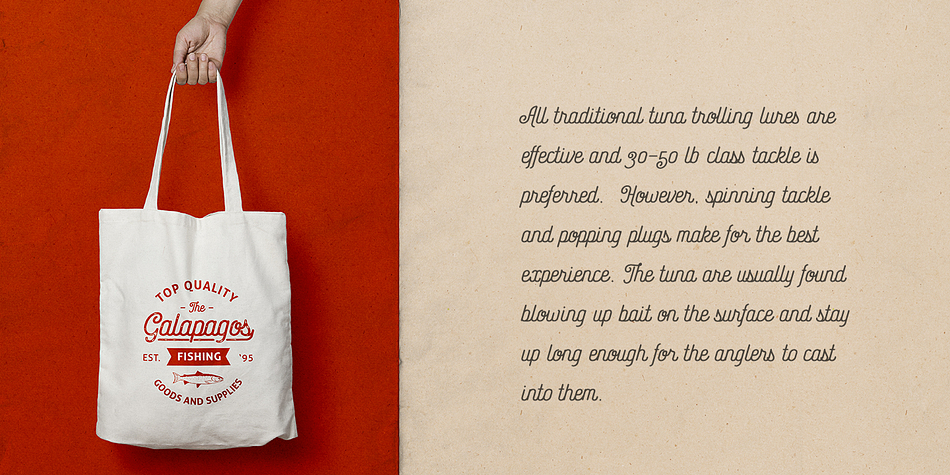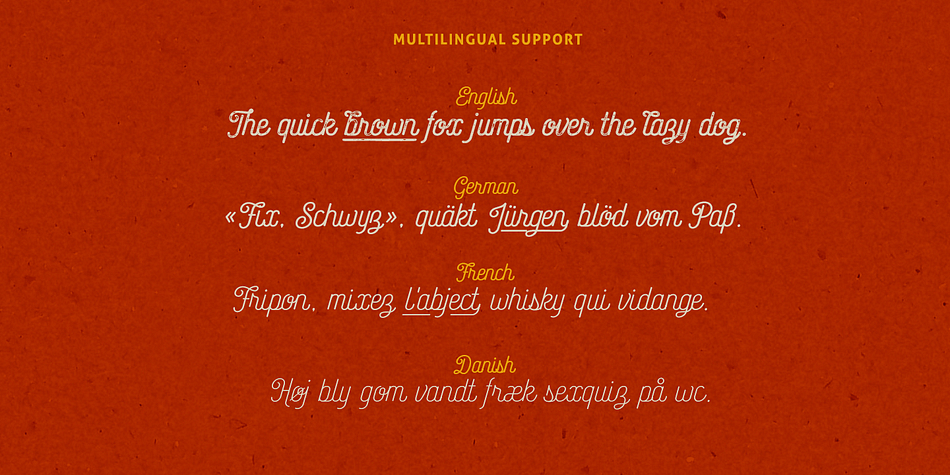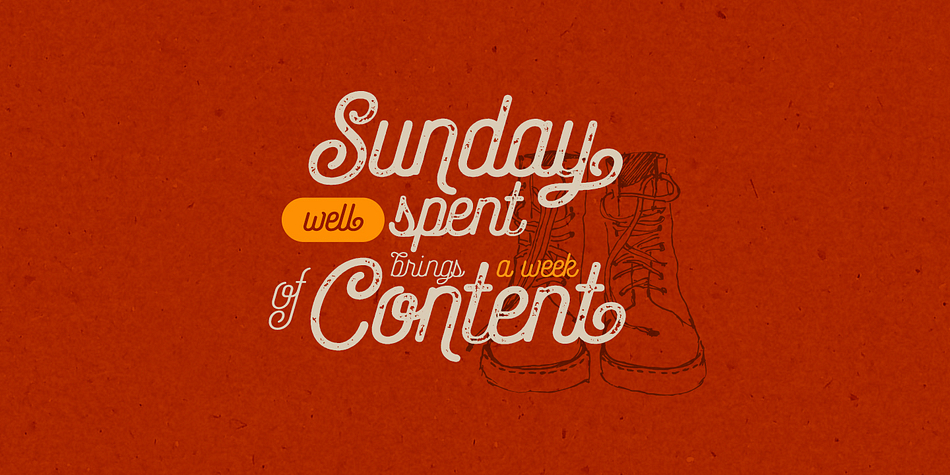
Designed by Elena Genova, Catfish is a grunge, hand drawn and script font family. This typeface has five styles and was published by My Creative Land.
Catfish is a monoline geometric script with a touch of classic and vintage. It can be used for various purposes such as logos, badges, t-shirt design, signage, labels, book cover design, posters etc…
Styles | Grunge, Hand Drawn, Script |
Designer | Elena Genova |